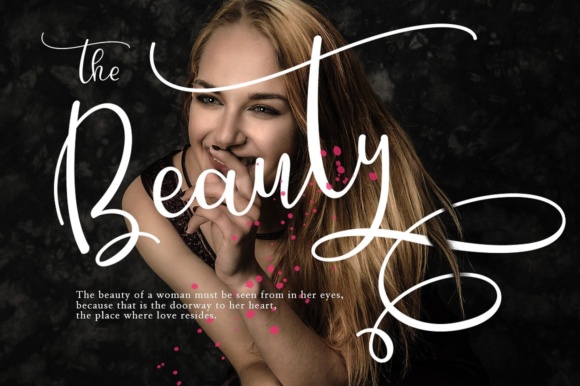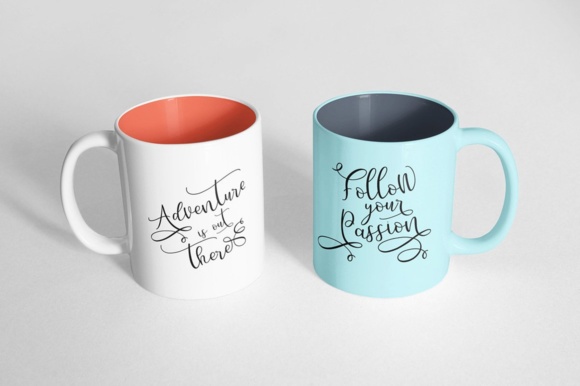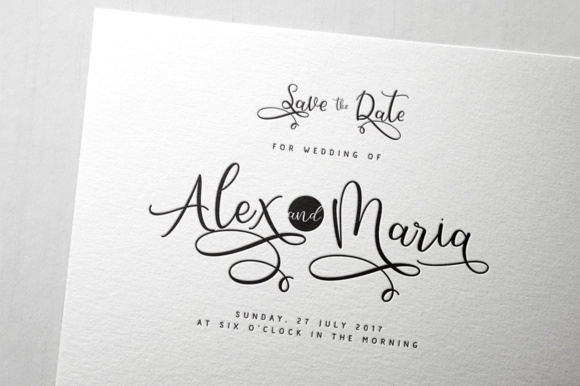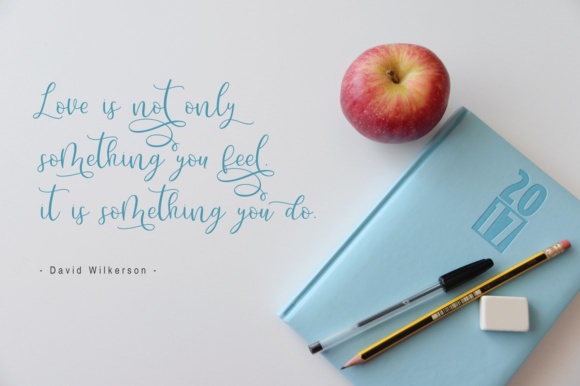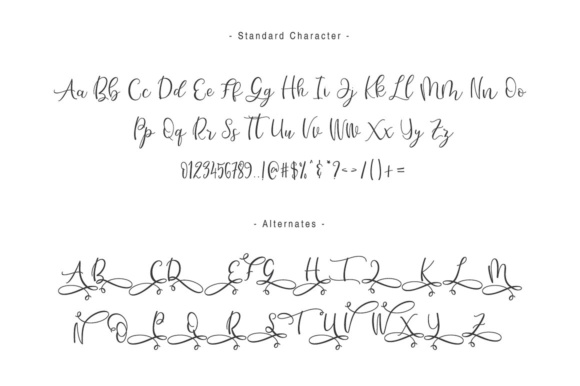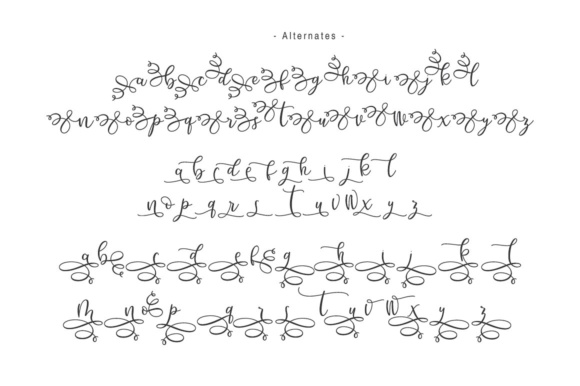
Hello Bunda Font: A Simple yet Stunning Handwritten Font
The Hello Bunda Script is a simple, clean handwritten font featuring stunning swashes. Designed to add a touch of elegance and sophistication to any design project, Hello Bunda Font has become a popular choice among designers and crafters. In this article, we’ll take a closer look at the features and benefits of Hello Bunda Font and explore how it can elevate your design work.
What is Hello Bunda Font?
Hello Bunda Font is a modern handwritten font that boasts a clean and simple design. Its elegant strokes and beautiful swashes make it perfect for a wide range of design projects, from branding and packaging to wedding invitations and crafts. The font’s simplicity and versatility have made it a favorite among designers and crafters looking for a stylish and sophisticated font.
Key Features of Hello Bunda Font
- Simple and Clean Design: Hello Bunda Font features a simple and clean design that makes it easy to read and use.
- Stunning Swashes: The font comes with beautiful swashes that add a touch of elegance and sophistication to any design project.
- Handwritten Style: Hello Bunda Font has a handwritten style that gives it a personal and unique touch.
- Versatile: The font is versatile and can be used for a wide range of design projects, from branding and packaging to wedding invitations and crafts.
Benefits of Using Hello Bunda Font
There are many benefits to using Hello Bunda Font in your design projects. Here are a few:
- Elegance and Sophistication: Hello Bunda Font adds a touch of elegance and sophistication to any design project.
- Unique and Personal: The font’s handwritten style gives it a unique and personal touch that sets it apart from other fonts.
- Easy to Read: Hello Bunda Font is easy to read, making it perfect for body text and headlines.
- Customizable: The font comes with stunning swashes that can be used to customize your design and make it more unique.
How to Use Hello Bunda Font
Hello Bunda Font can be used for a wide range of design projects, including:
- Branding and Packaging: Use Hello Bunda Font to create elegant and sophisticated branding and packaging designs.
- Wedding Invitations: The font is perfect for wedding invitations, save-the-date cards, and other wedding-related designs.
- Crafts: Hello Bunda Font can be used for a variety of craft projects, including card making, scrapbooking, and DIY projects.
- Digital Designs: The font can be used for digital designs, including social media graphics, blog posts, and website headers.
Tips for Using Hello Bunda Font
Here are a few tips for using Hello Bunda Font:
- Pair it with Other Fonts: Hello Bunda Font can be paired with other fonts to create a unique and interesting design.
- Experiment with Swashes: The font’s stunning swashes can be used to add a touch of elegance and sophistication to your design.
- Use it for Headlines and Body Text: Hello Bunda Font is easy to read, making it perfect for both headlines and body text.
Hello Bunda Font is a simple yet stunning handwritten font that features beautiful swashes and a clean design. Its elegance and sophistication make it perfect for a wide range of design projects, from branding and packaging to wedding invitations and crafts. With its versatility and customizability, Hello Bunda Font is a great choice for designers and crafters looking for a stylish and sophisticated font.